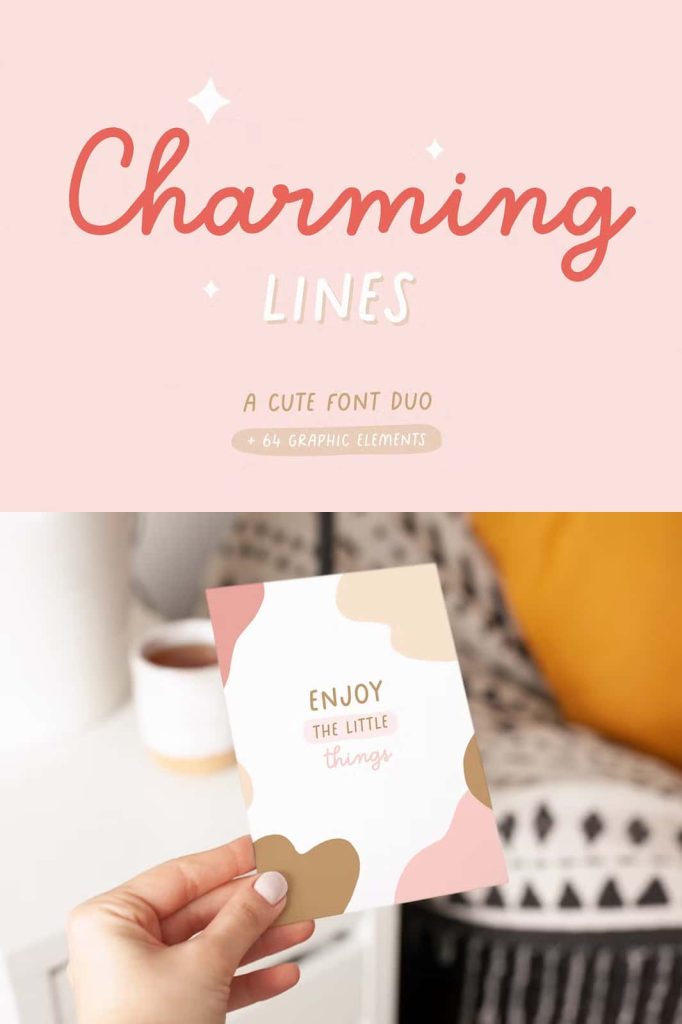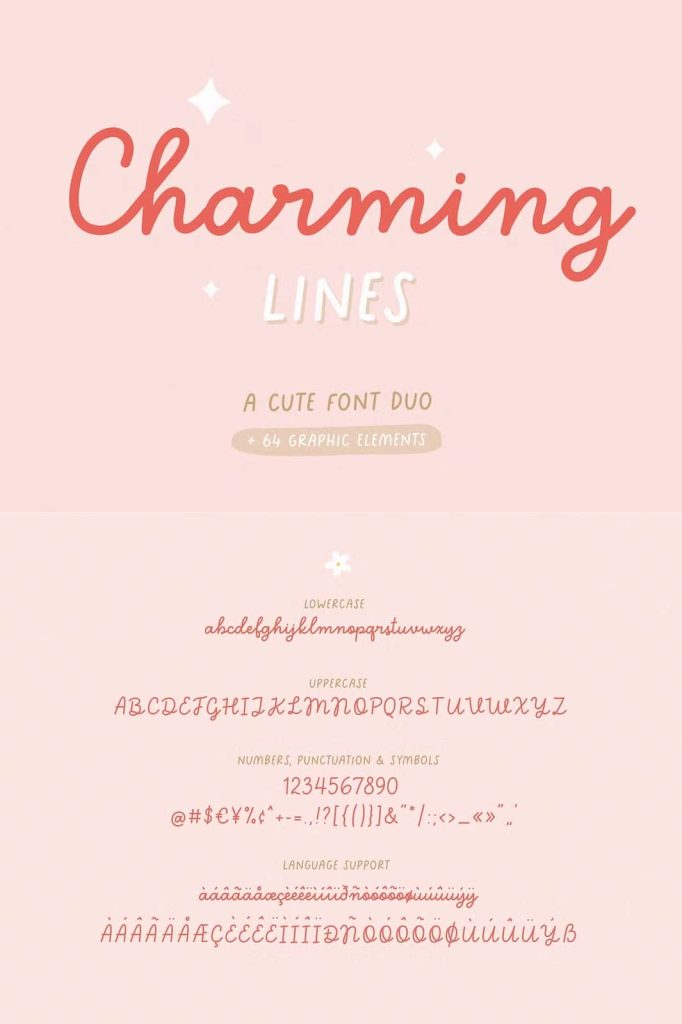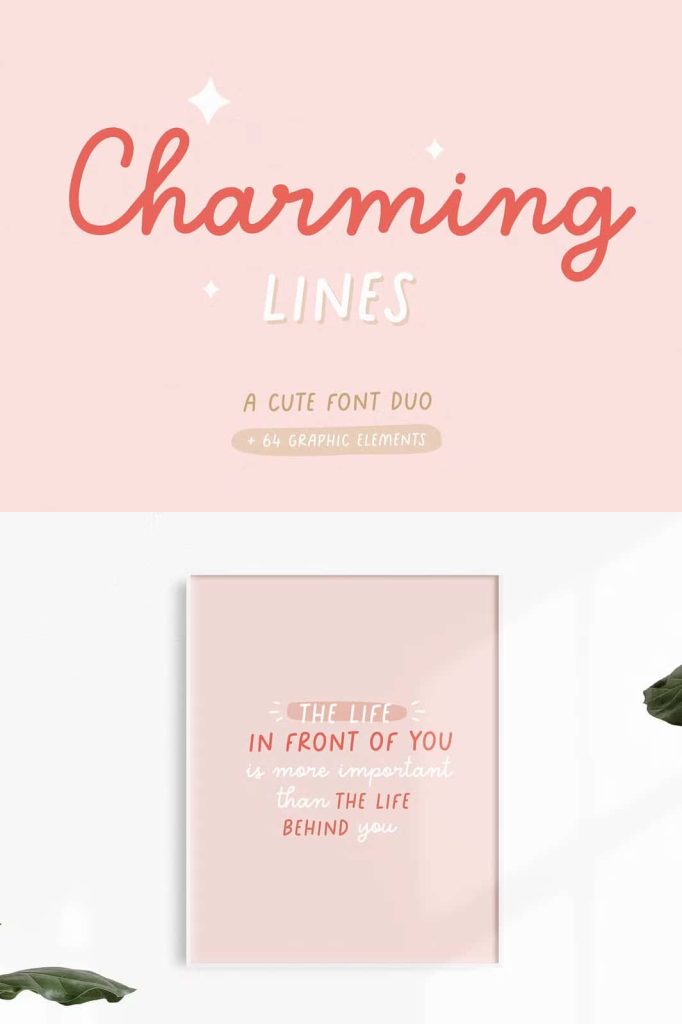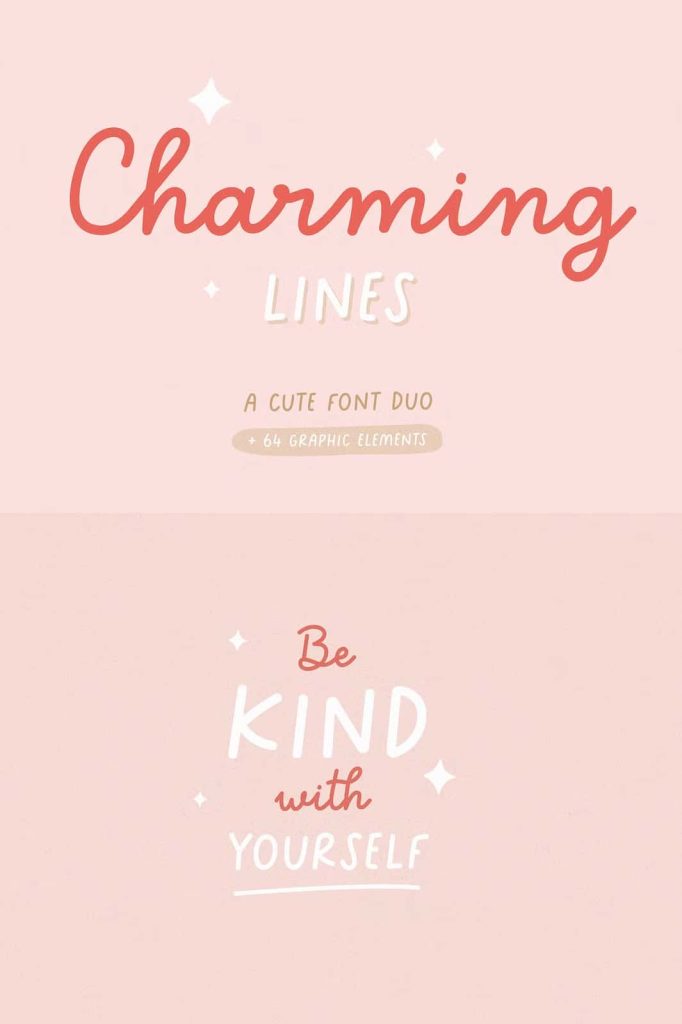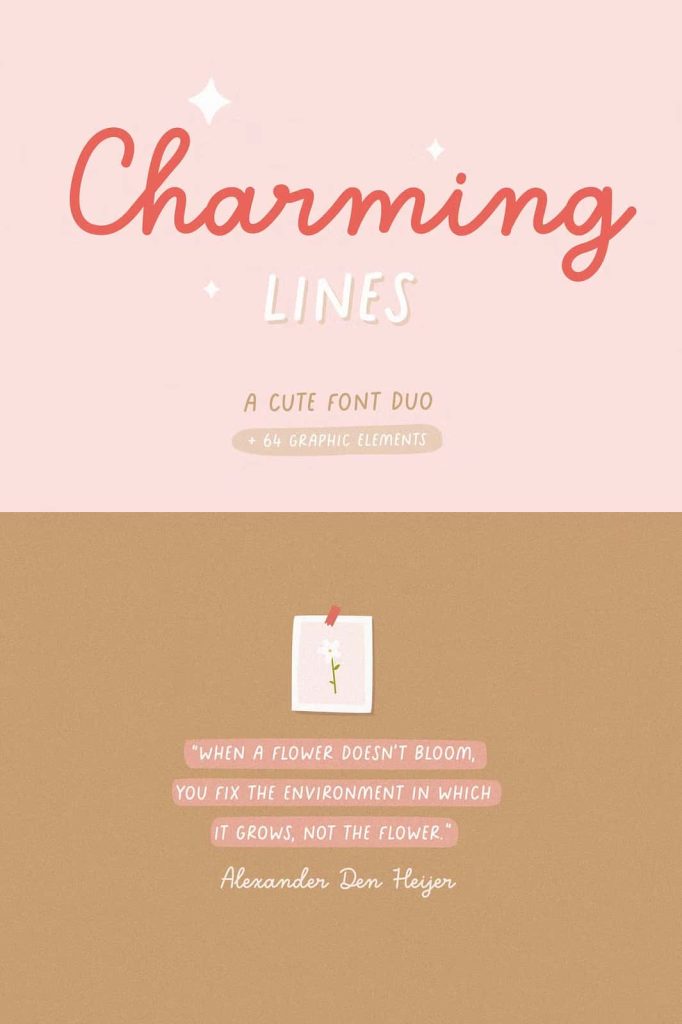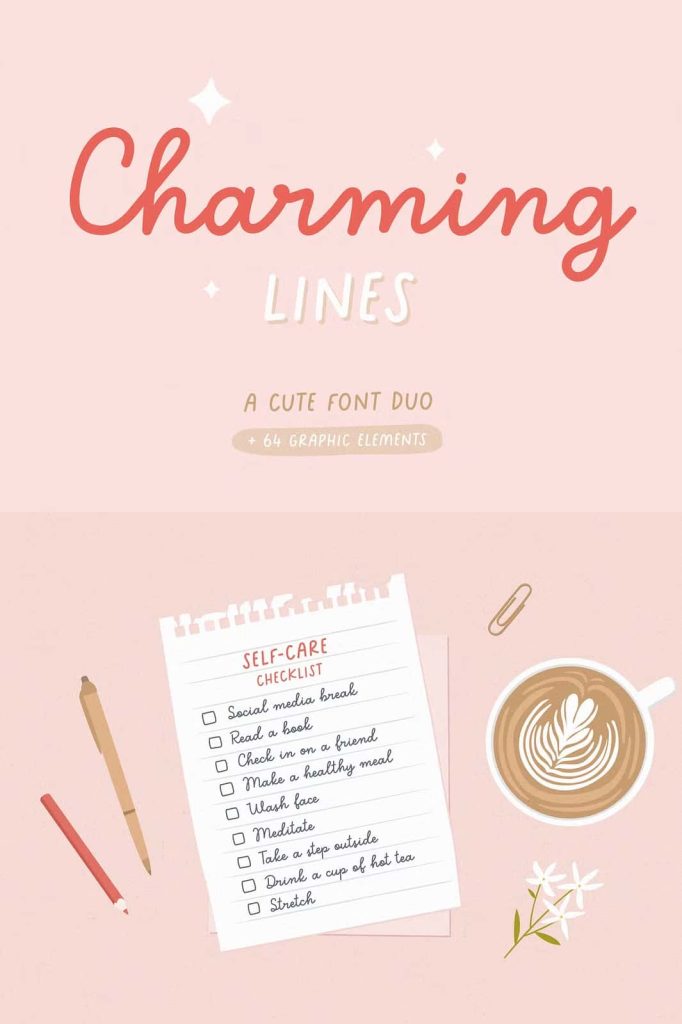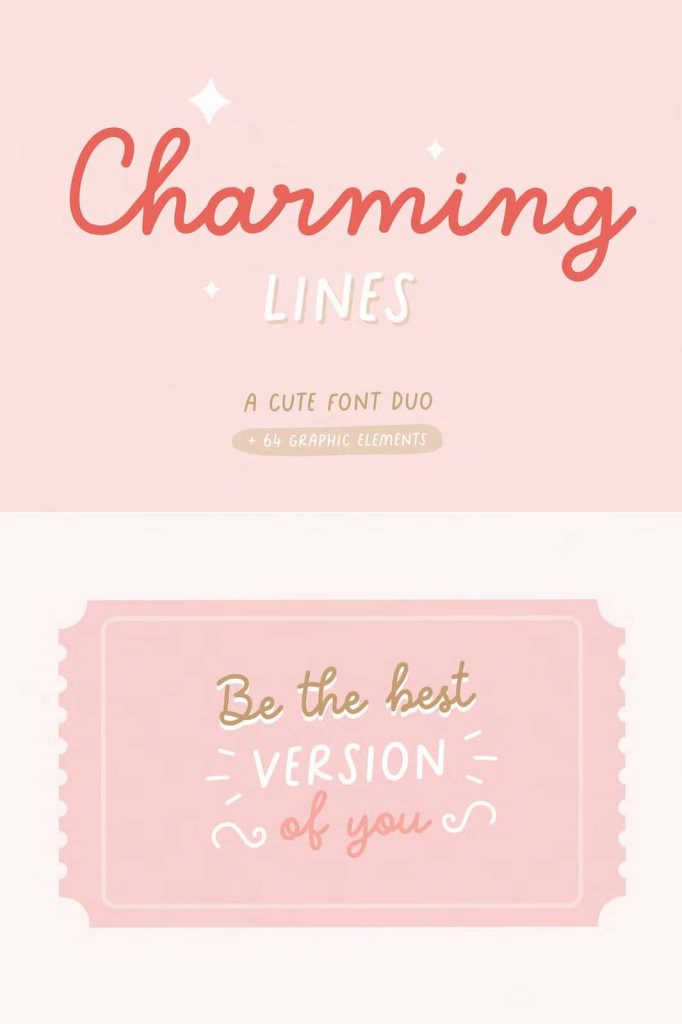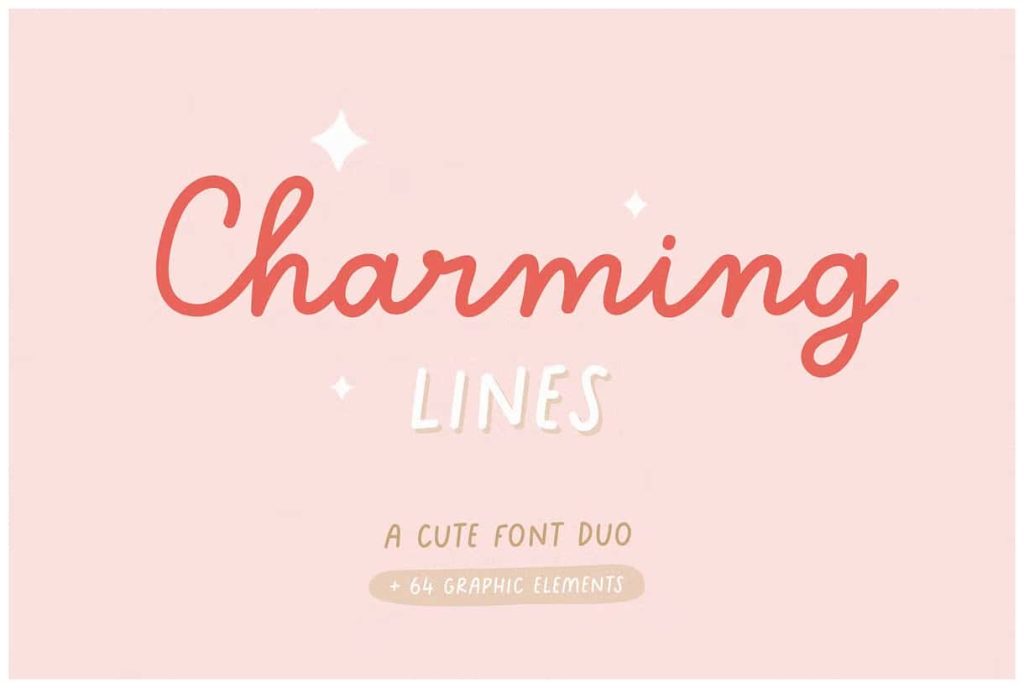
Charming lines | Font duoleastedMay 17, 2025Fonts Charming lines will be perfect for books, greeting cards, logos, posters or anything that requires a fun and happiness look! Download